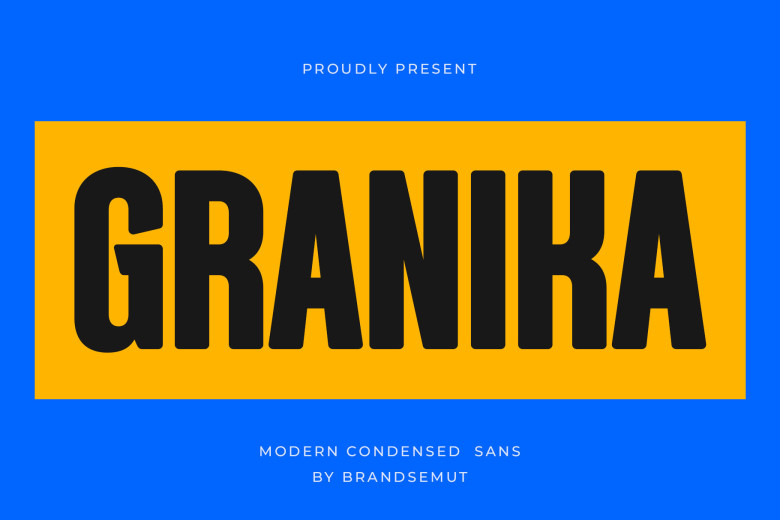
Granika Font
Granika is an eye-catching condensed sans-serif font designed to add sophistication to magazines, product packaging and invitations. With its clean lines and subtle curvatures, Granika adds elegance to any project.
Granika Sans Serif Font